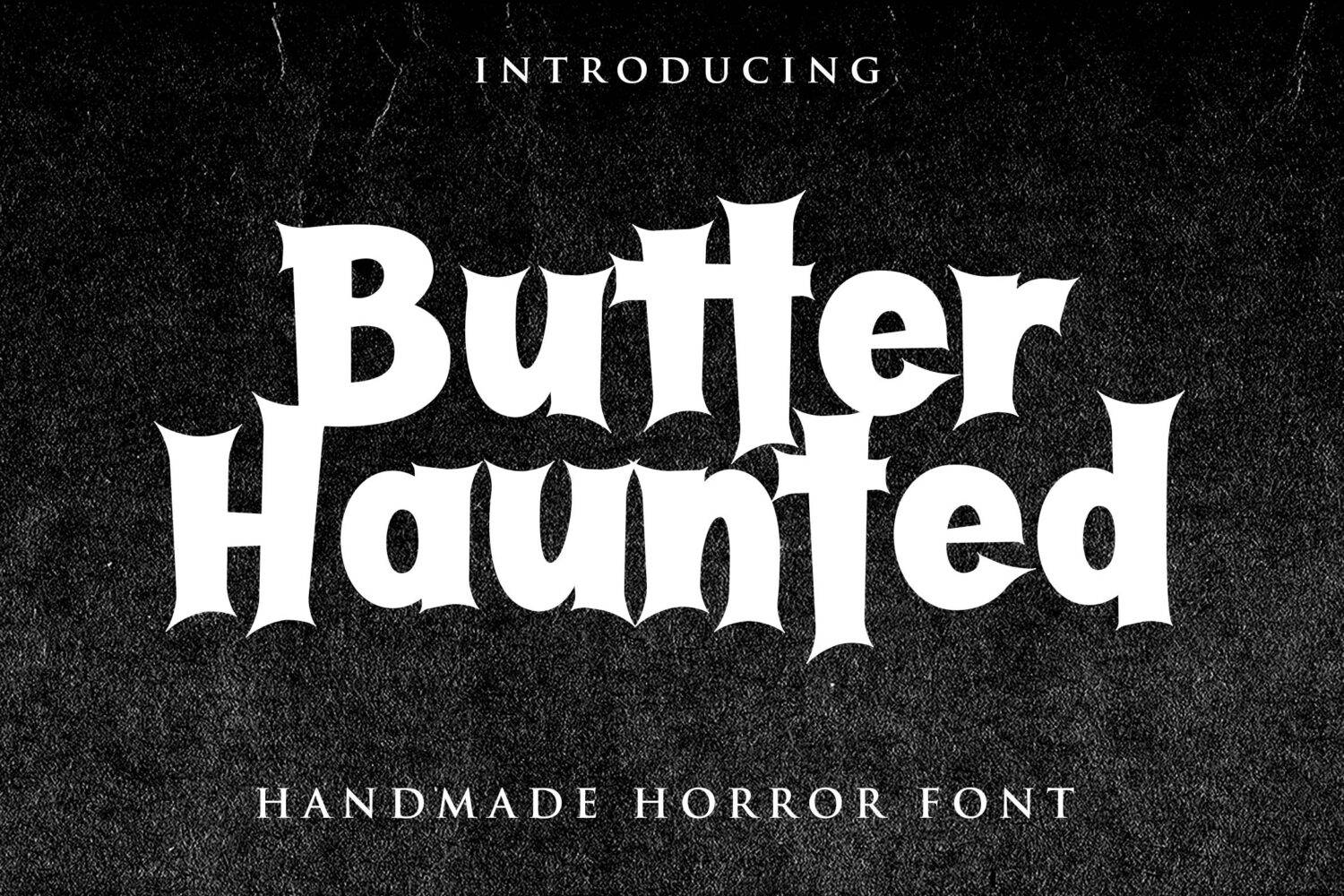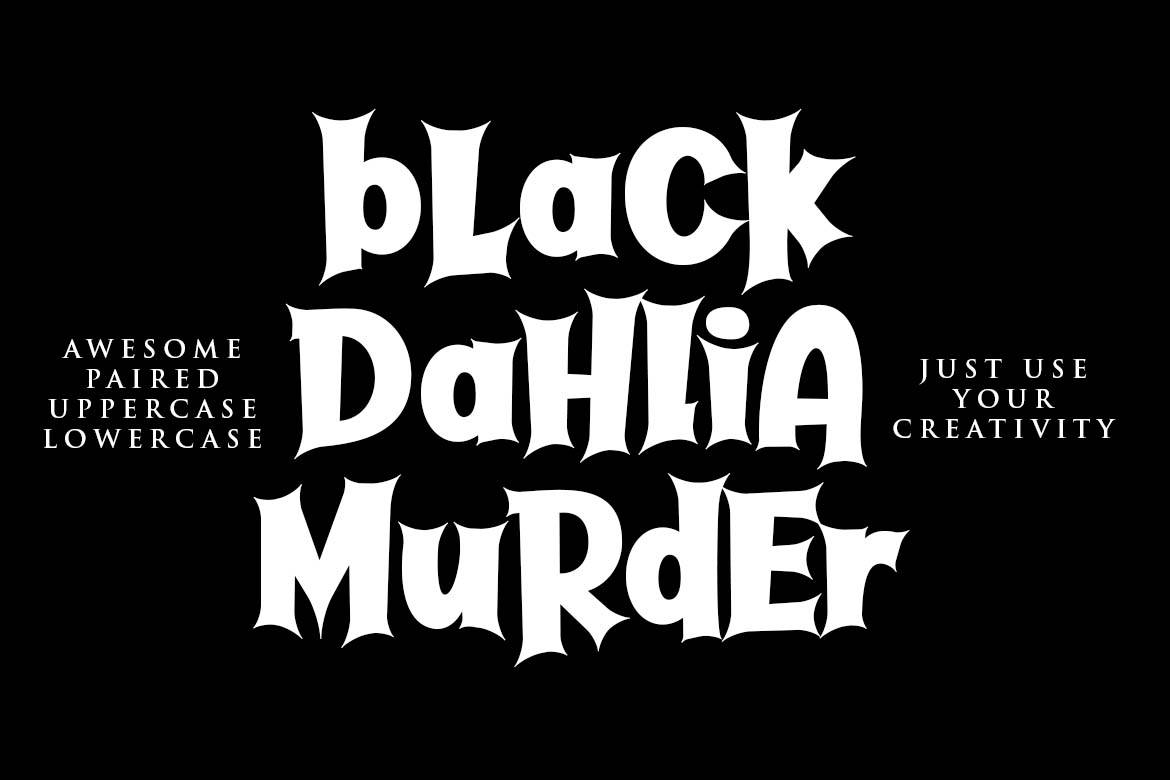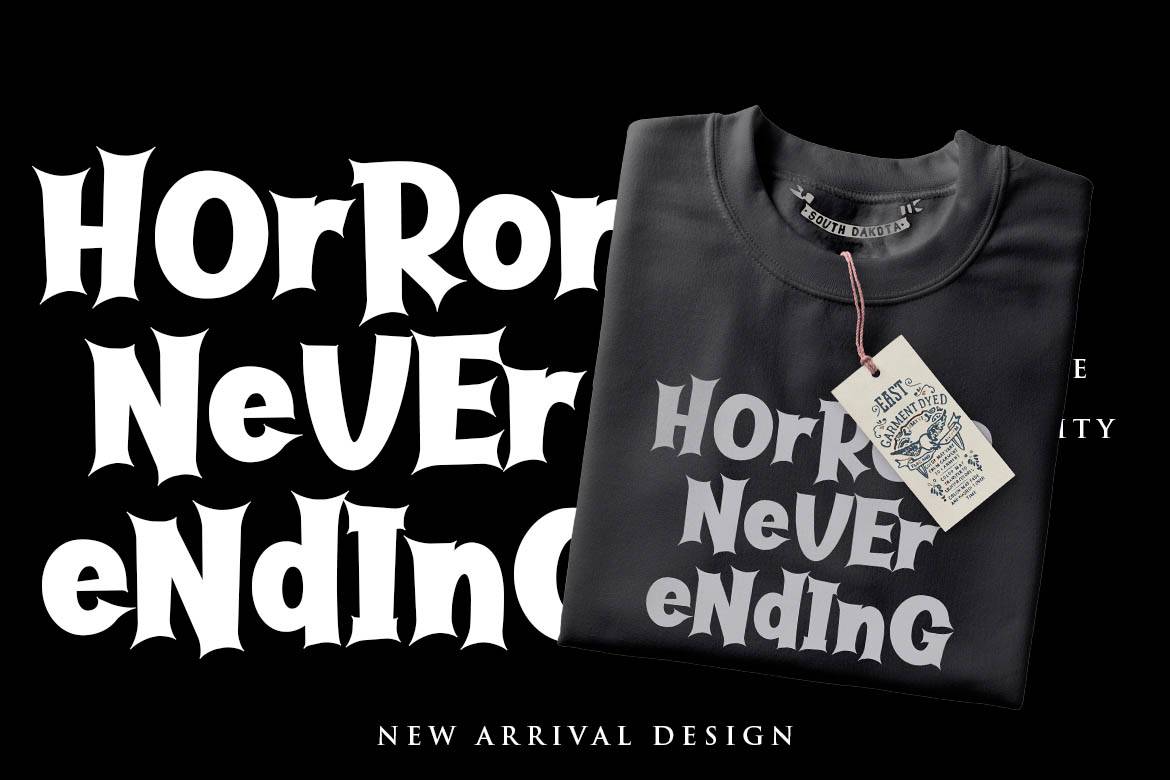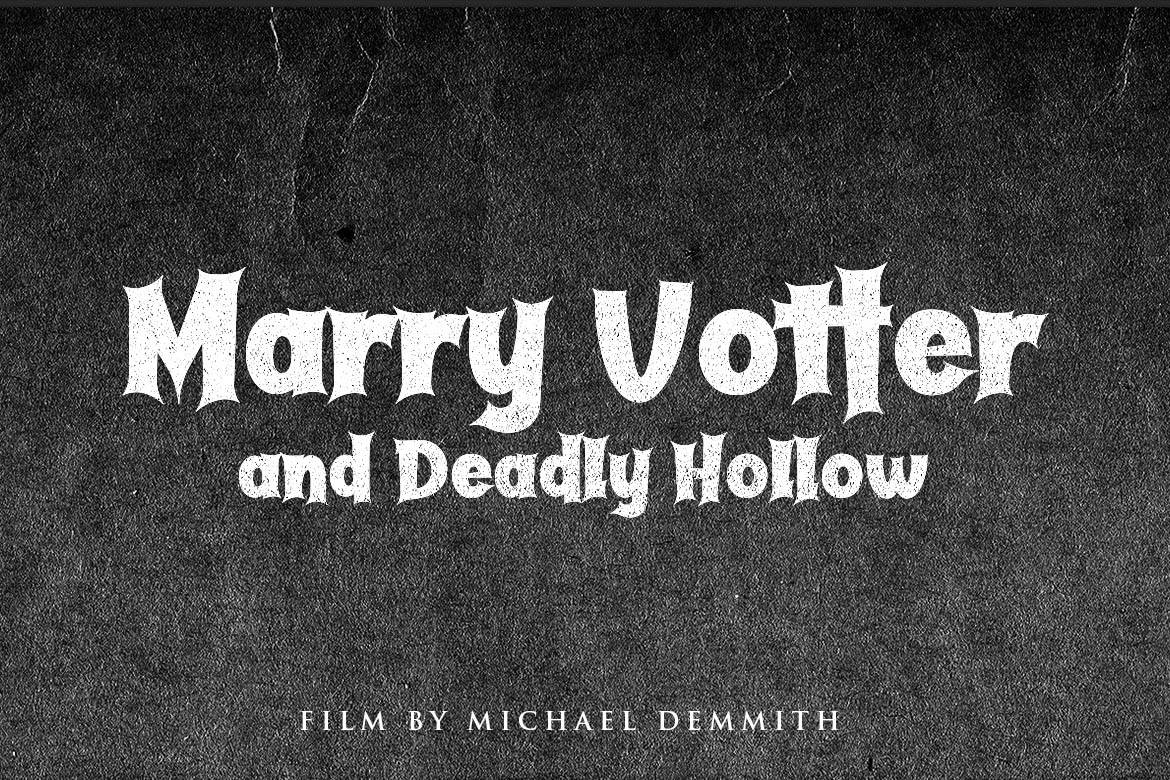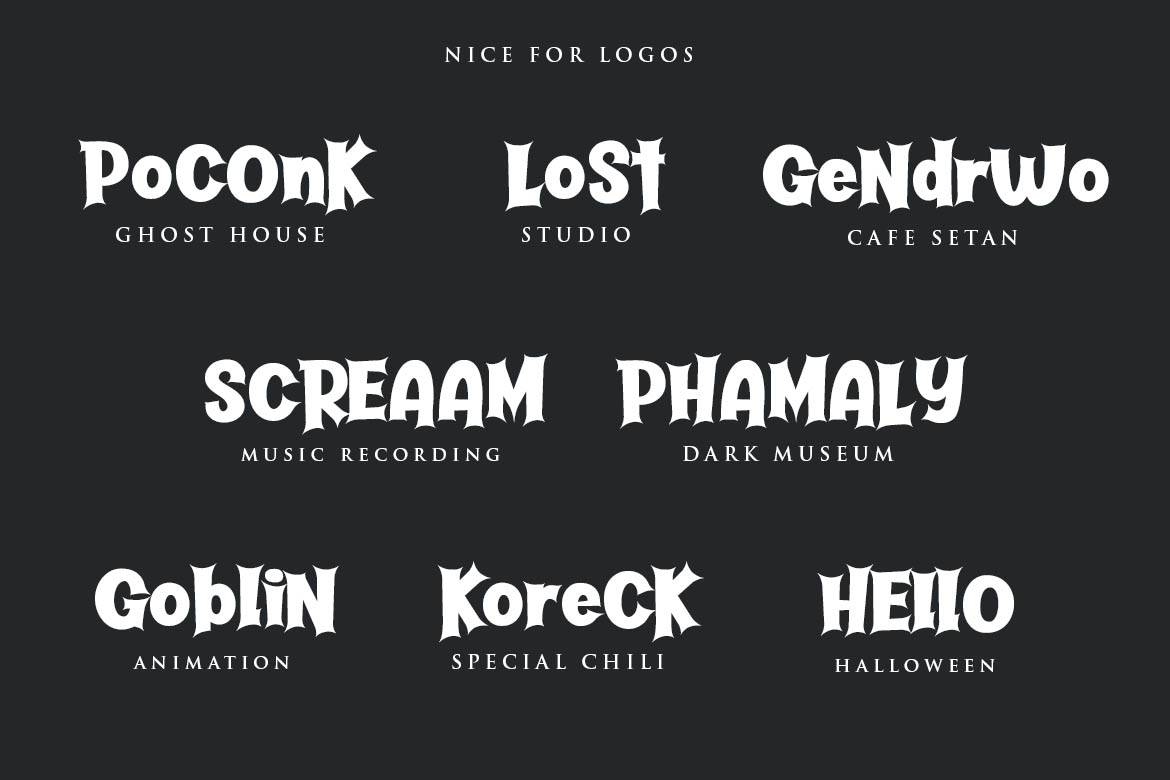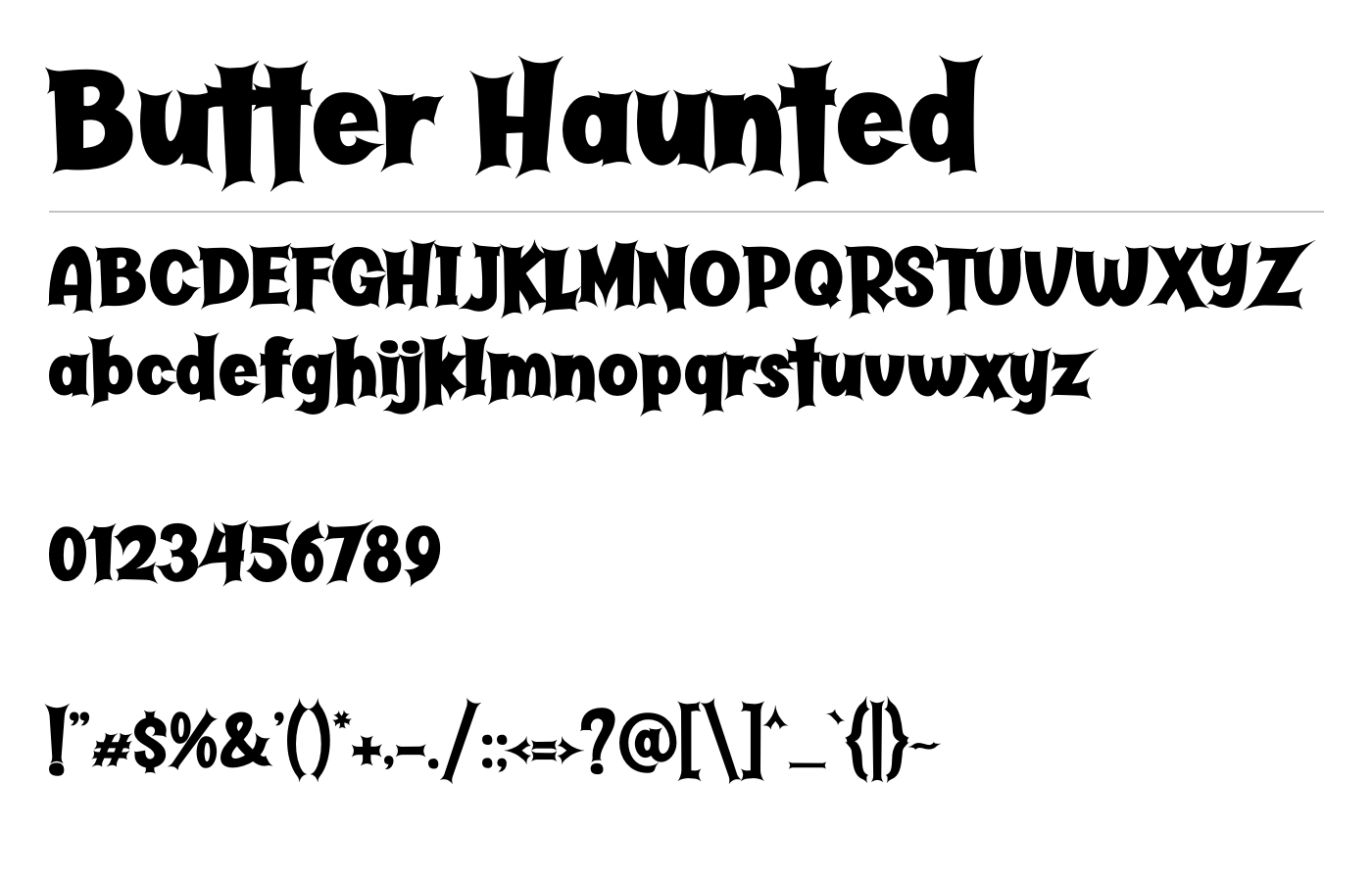
Butter Haunted is a bold, playful serif font with sharp, jagged edges that give it a spooky, Halloween-inspired vibe. Its heavy weight and whimsical letter shapes make it perfect for eye-catching headlines, festive posters, and themed branding where a fun yet eerie atmosphere is desired. This font brings a lively, slightly gothic personality ideal for seasonal or horror-related designs.
Butter Haunted Font
About Butter Haunted Font
| Font family | Butter Haunted Font |
| Designer | Lettersiro 2018 |